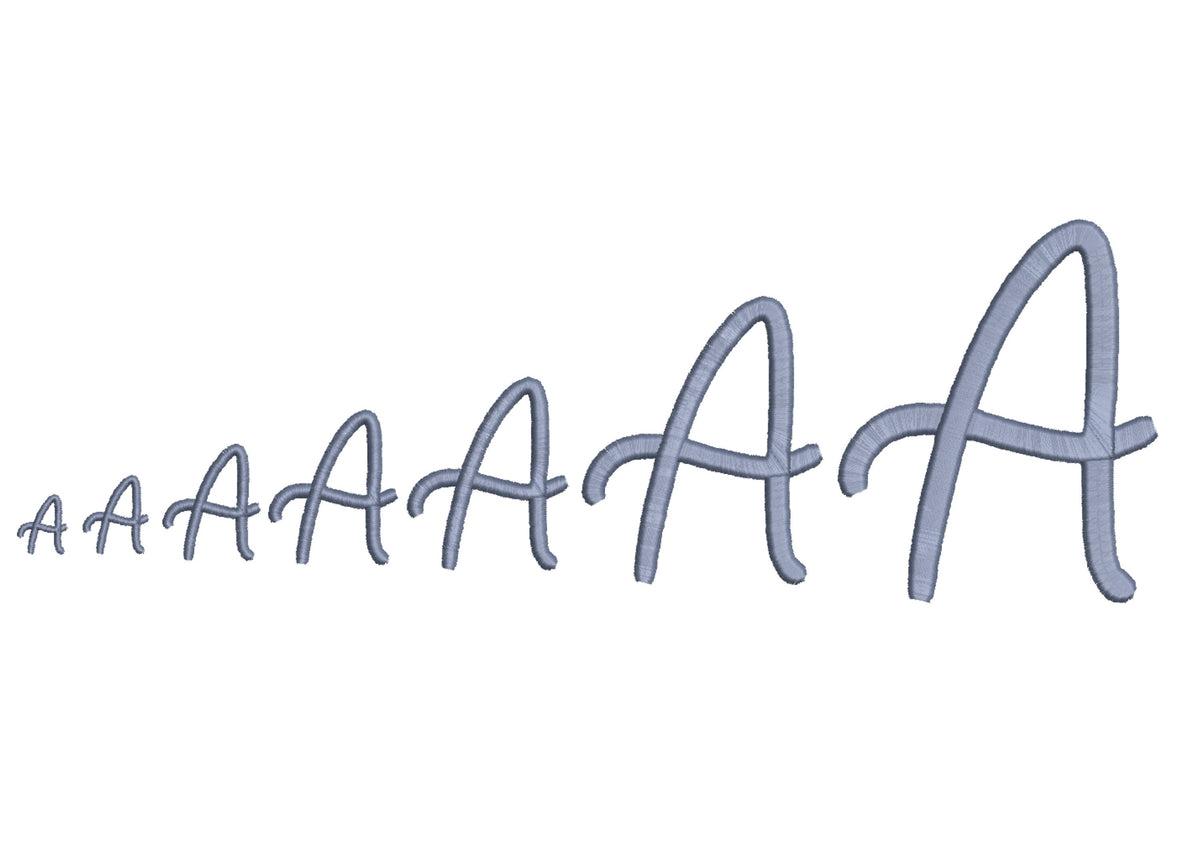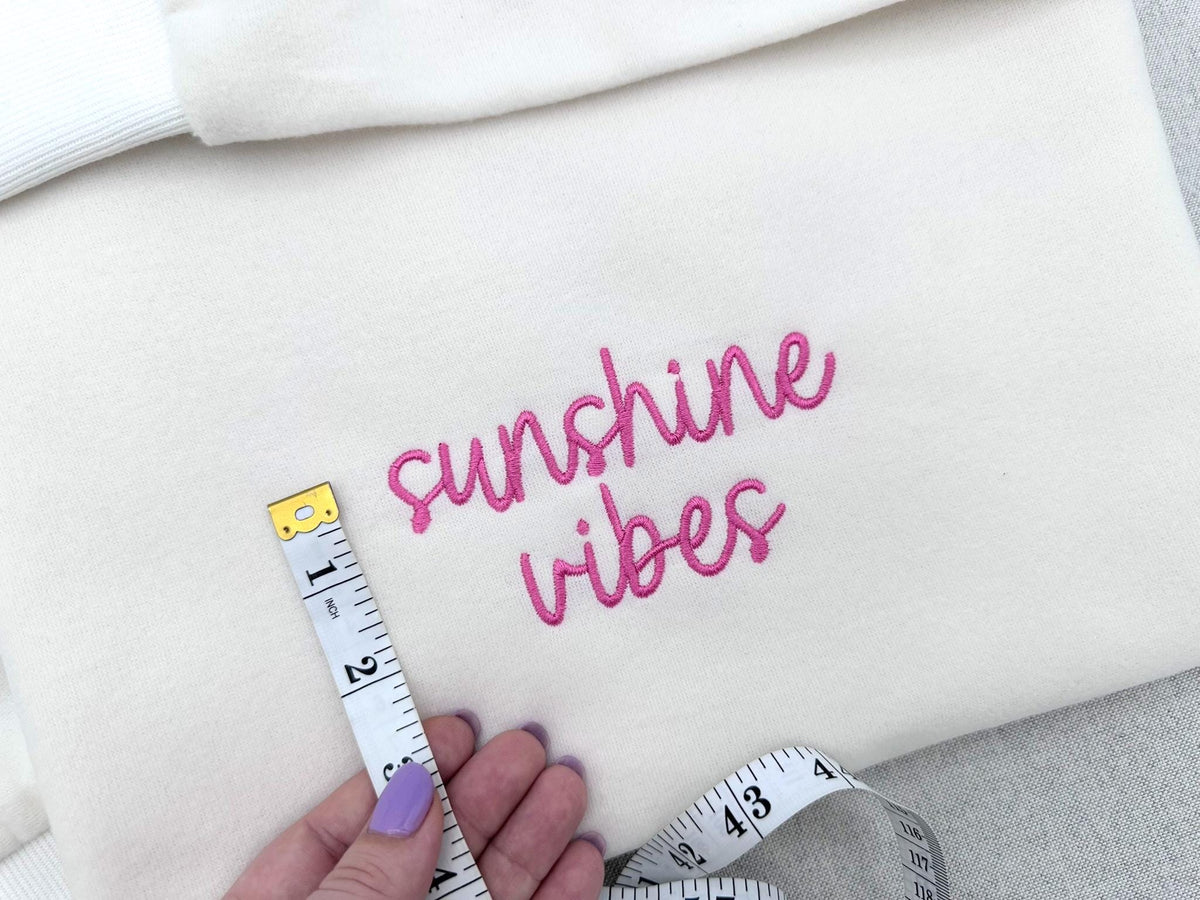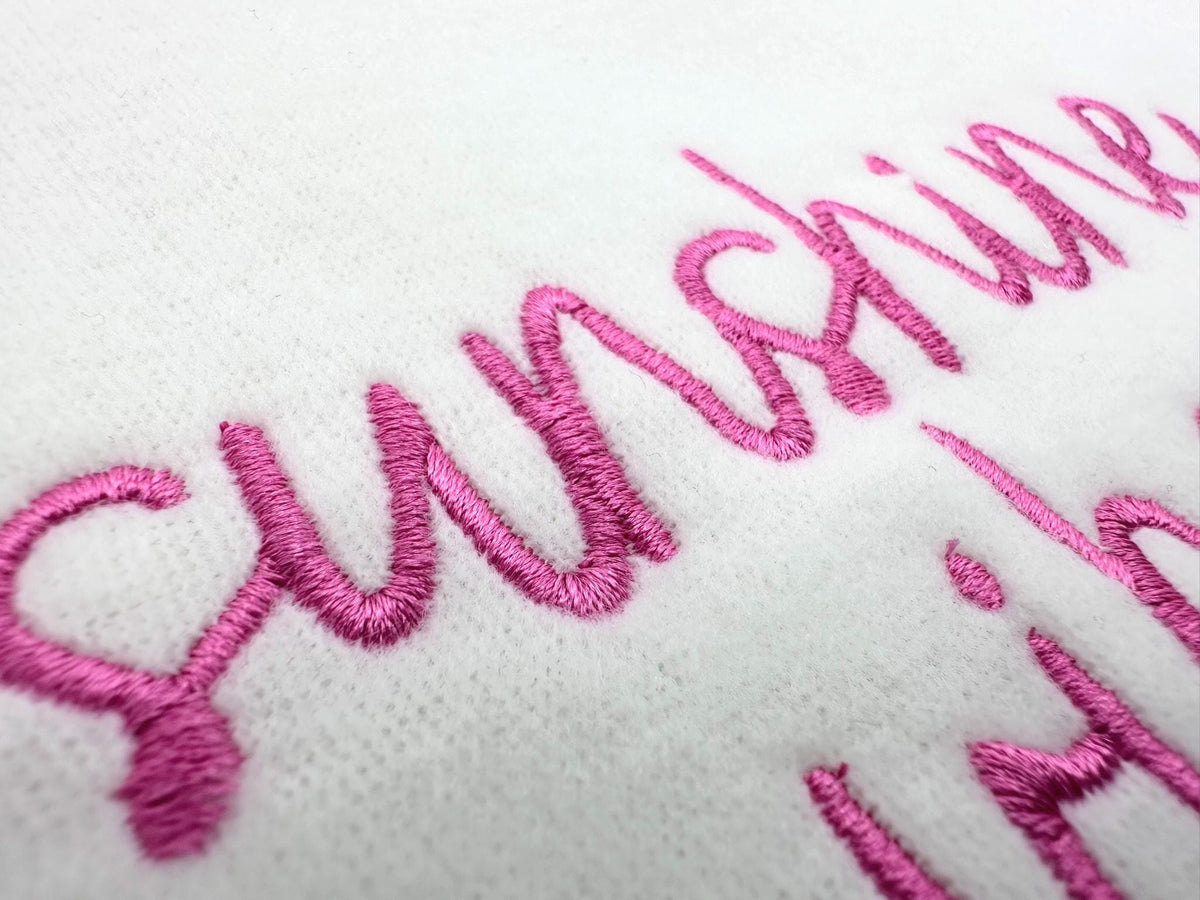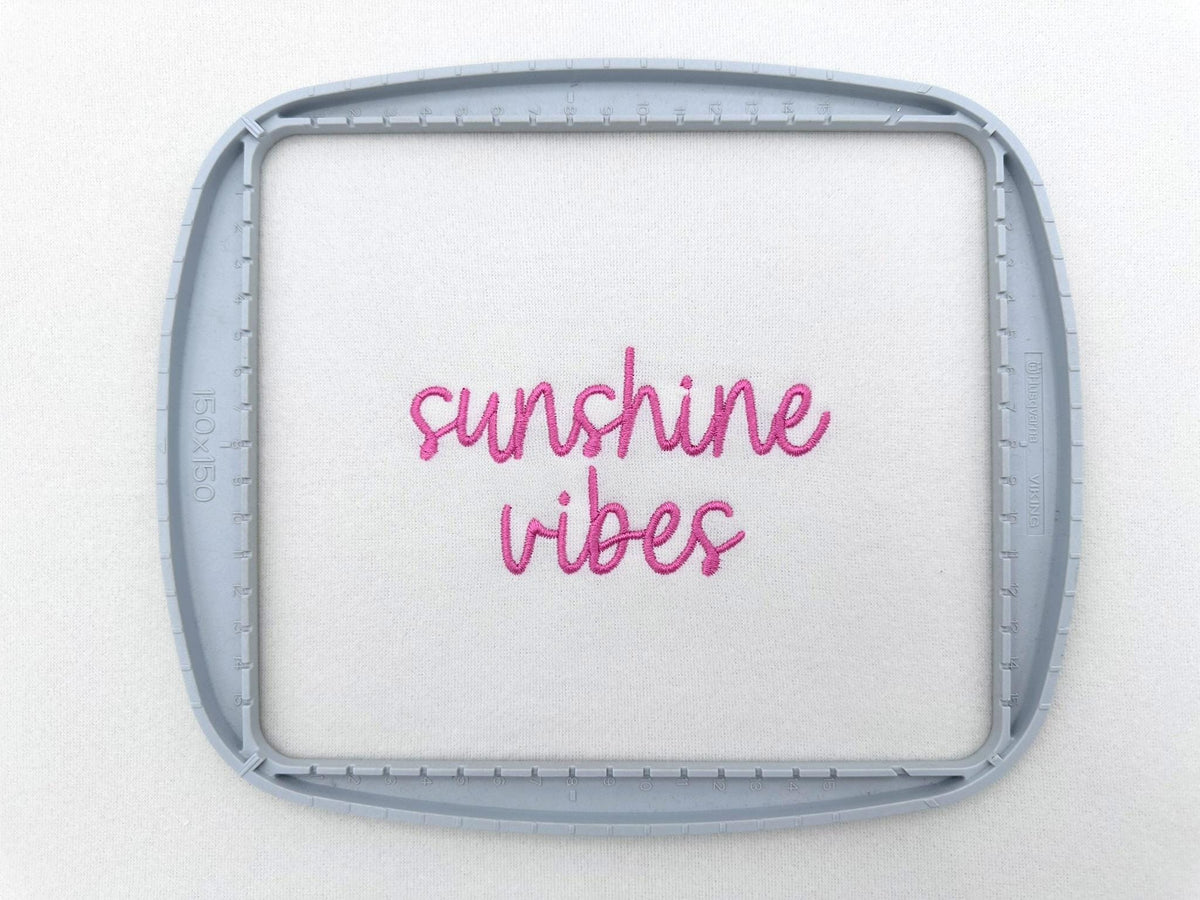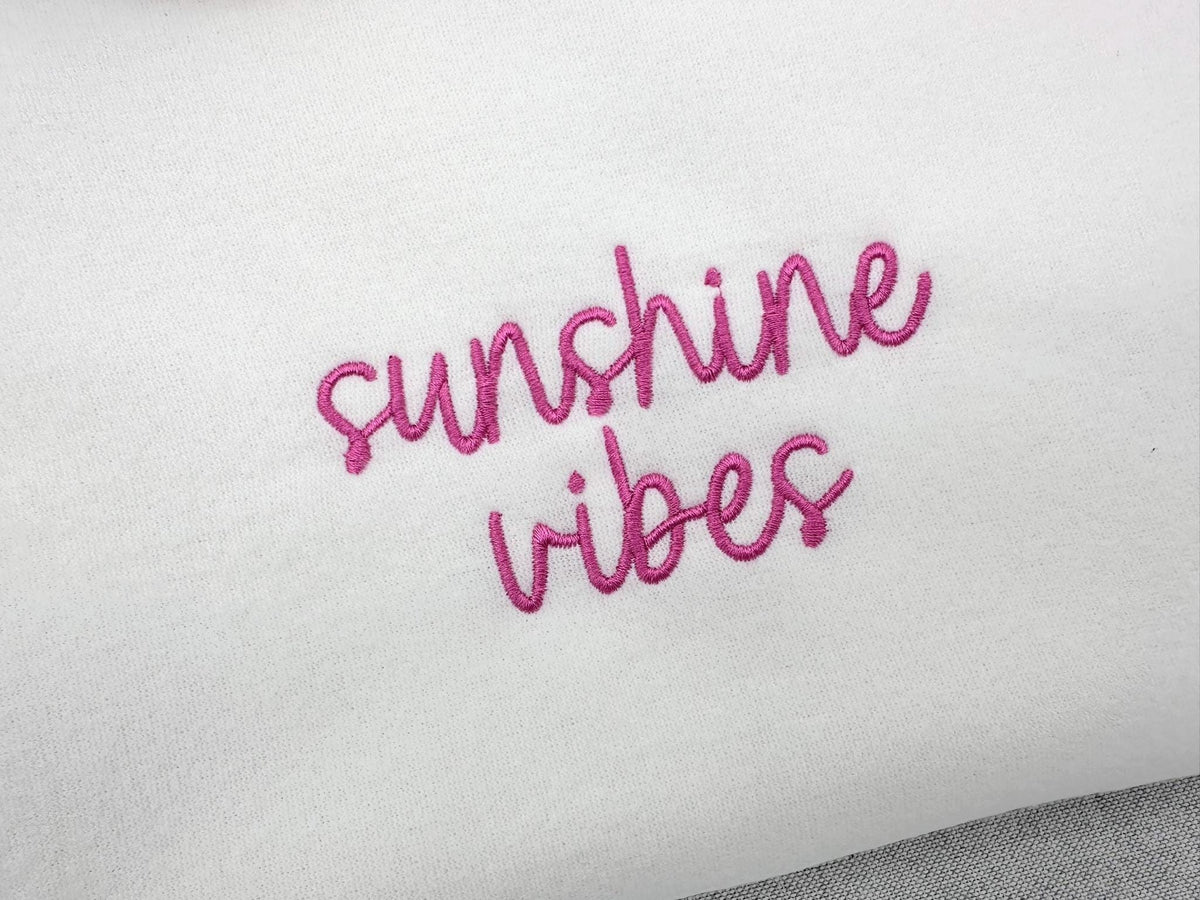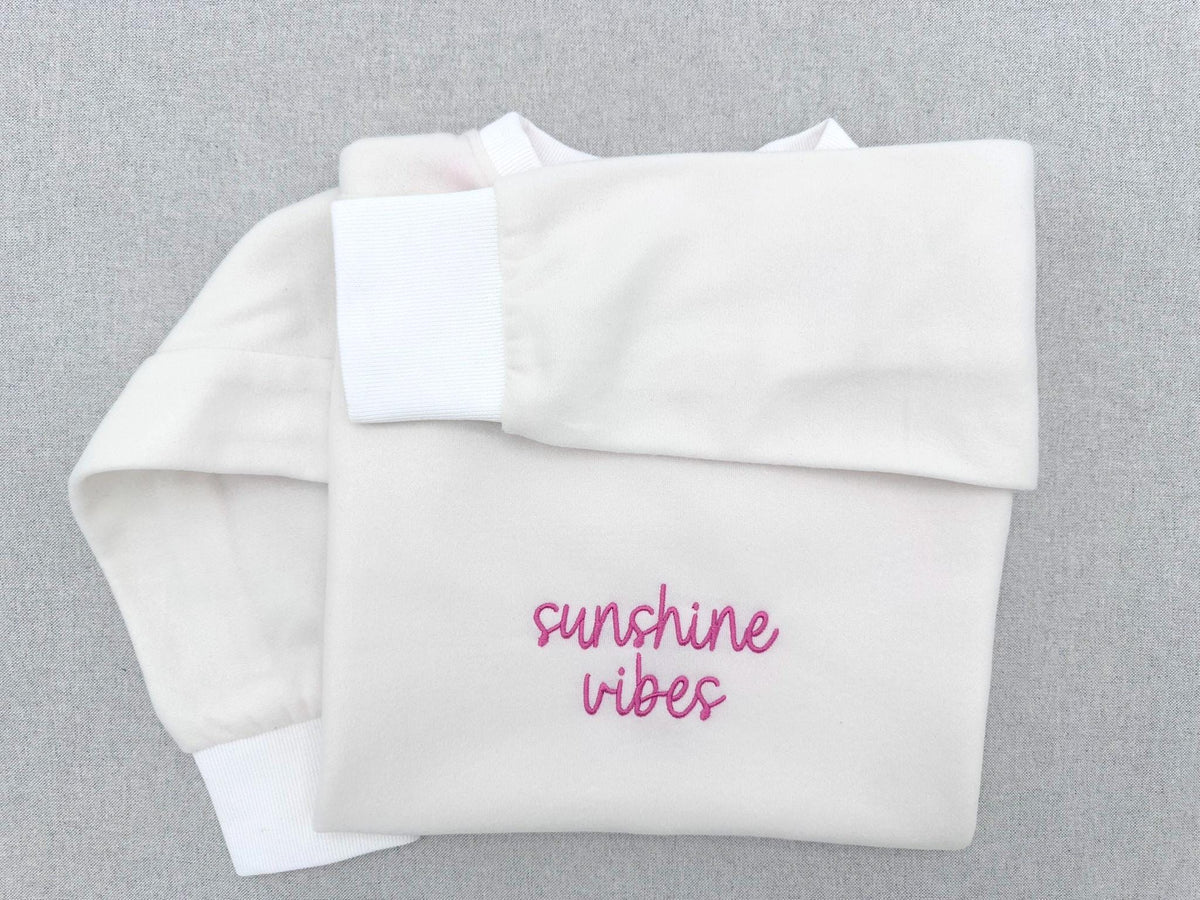
Script Handwritten Font Haley
The letters come in seven sizes: 0.6, 0.8, 1.2, 1.6, 2, 3 and 4 inches. Smooth satin stitch cursive letters. Includes uppercase and lowercase letters, numbers 0 to 9 and punctuation.
- Satin stitch cursive script font
- 7 sizes, 0.6 to 4 in